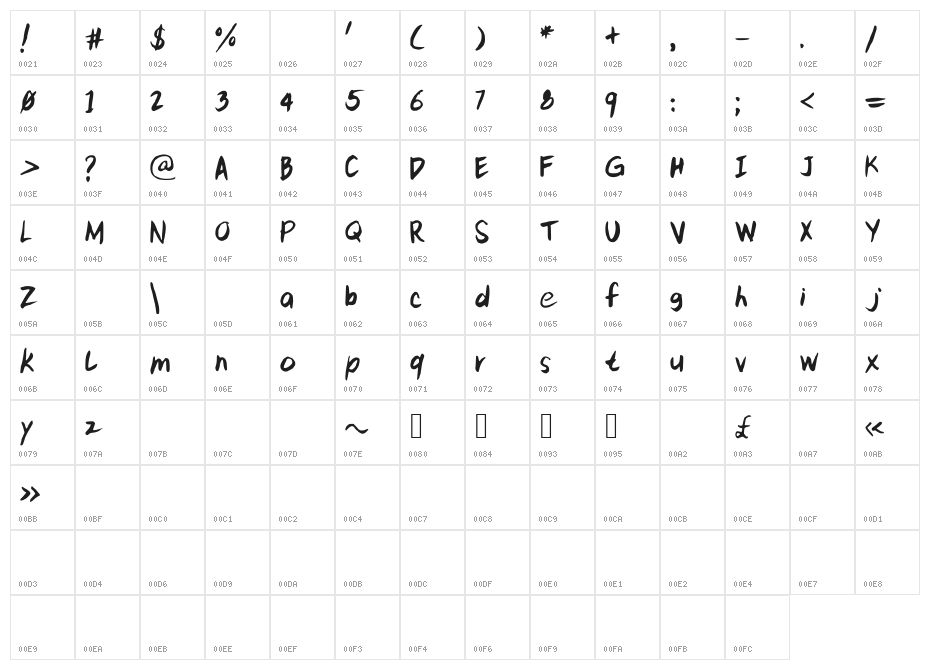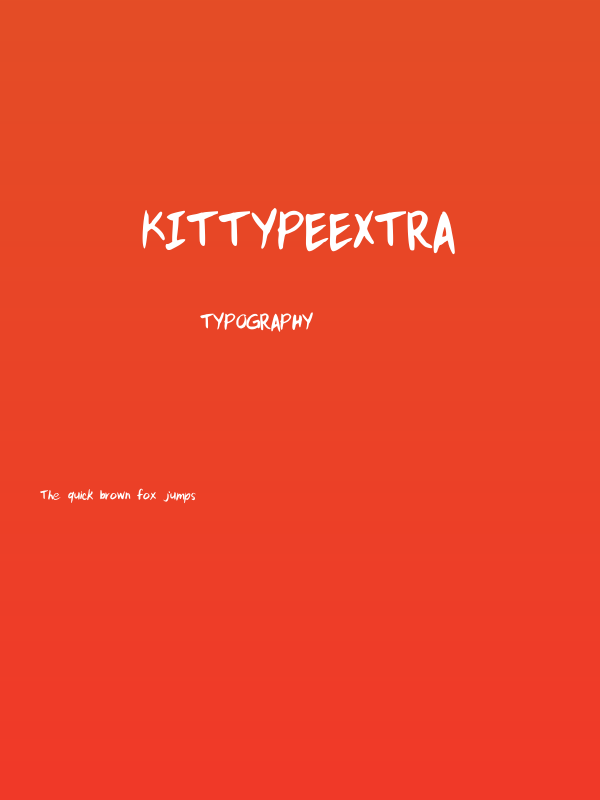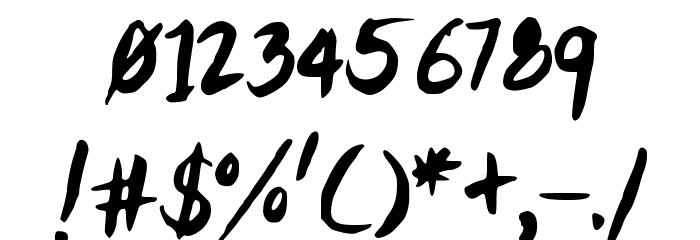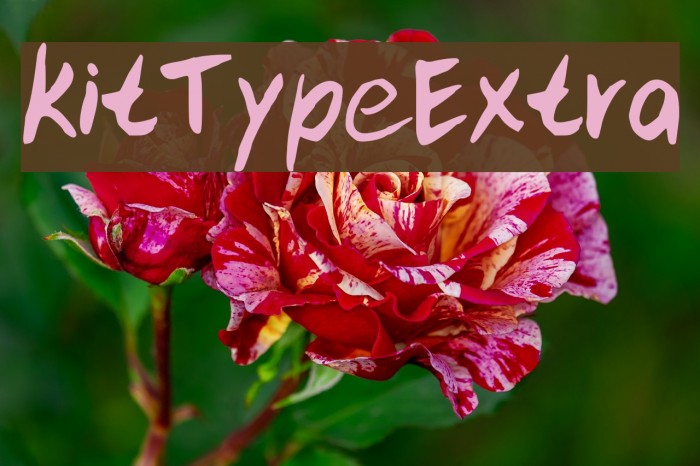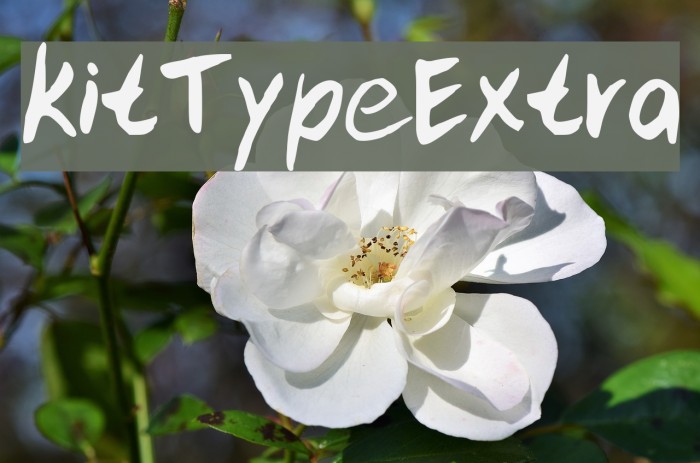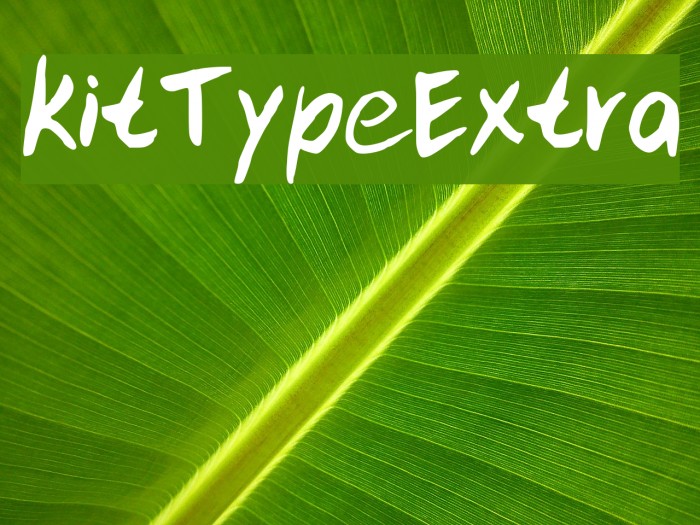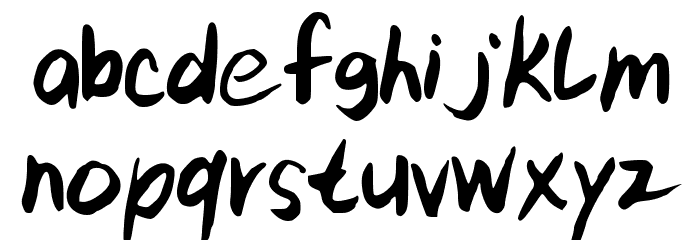
kitTypeExtra Font
kitTypeExtra Description
This font features a bold and dynamic handwritten style, characterized by its energetic and slightly irregular strokes. The letters have a casual, informal appearance, with a playful and artistic flair. The uppercase and lowercase letters maintain a consistent style, with rounded edges and varying stroke widths that add to the font's lively personality. The numbers and special characters follow the same aesthetic, making the font versatile for creative projects. Its unique style makes it stand out, perfect for designs that require a personal touch.
| Proposed Projects | Ideal for greeting cards, posters, branding projects, and social media graphics where a personal, artistic touch is desired. |